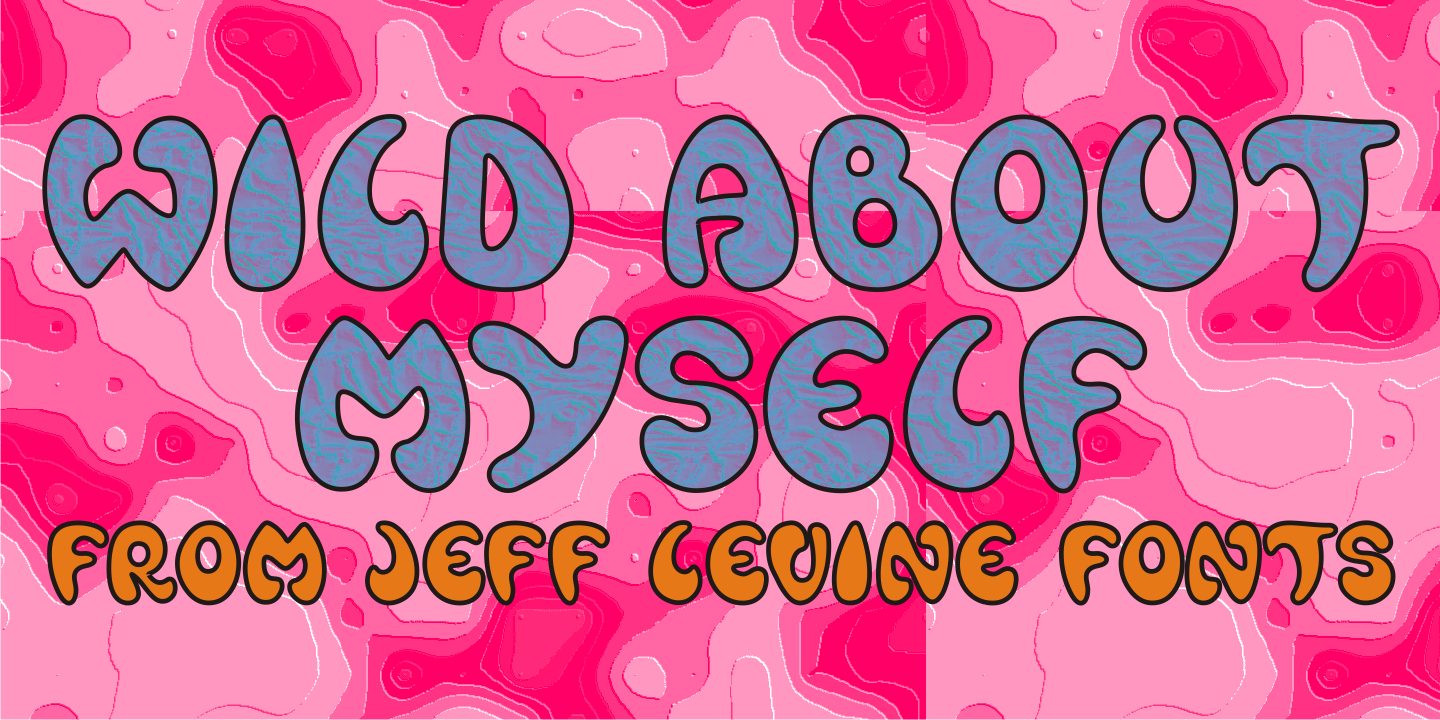
Wild About Myself JNL Font is ideal for self-empowerment campaigns, confidence coaching materials, personal development workshops, motivational speaker branding, self-love celebration graphics, bold fashion marketing, empowering beauty brands, inspiring lifestyle content, personal achievement recognition, and unapologetic self-expression projects. This spirited typeface excels in applications where self-confidence and personal empowerment need to be communicated with bold authenticity and fearless self-celebration that encourages individuals to embrace their unique qualities and celebrate their personal worth.
What makes Wild About Myself JNL Font exciting is its extraordinary ability to embody the spirit of unashamed self-love and confident personal expression through its boldly expressive letterforms that radiate the kind of fearless authenticity that comes from truly appreciating one's own unique value. The font captures the essence of personal empowerment with its dynamic construction and confident proportions that suggest the liberating joy of self-acceptance and the powerful energy that emerges when people embrace their authentic selves without apology. Its enthusiastically crafted character details and celebratory personality create an atmosphere of empowering self-appreciation that resonates with individuals seeking to build genuine confidence and embrace their personal journey.
The Wild About Myself JNL Font family typically includes Regular and Bold weights, each maintaining the signature confident characteristics and empowering energy. Some versions offer enhanced decorative elements that amplify the celebratory aesthetic, alternative character sets with expressive flourishes, and special symbols that reinforce themes of self-love and personal empowerment. The family may also include outline styles and dynamic treatments that enhance the bold self-expression appeal for maximum inspirational impact in personal development applications.
Whether you're creating empowerment brand identities, self-development materials, or confidence-building communications, Wild About Myself JNL Font Free Download delivers the perfect self-celebratory energy your empowering projects deserve. Its confident character and empowering styling make it an invaluable choice for life coaches, personal development brands, and wellness professionals working in self-empowerment, confidence building, and personal growth sectors where authentic self-love and fearless personal expression are essential for inspiring individuals to embrace their worth and celebrate their unique journey.